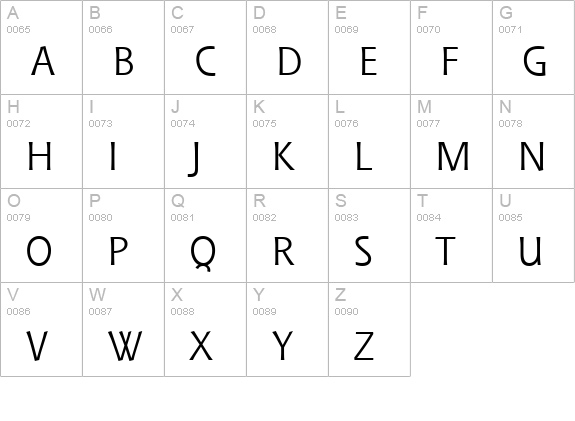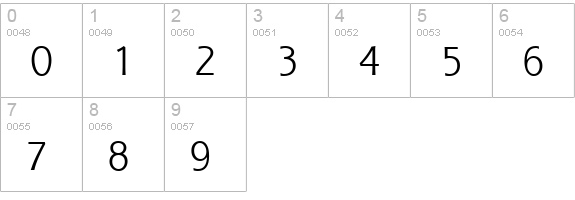
Shannon ATT Font Details
Introducing Shannon ATT, a beautifully crafted font that combines elegance with a touch of modernity. This versatile typeface is perfect for various design projects, from branding to editorial layouts and everything in between. Shannon ATT exudes a sense of sophistication and class, making it the ideal choice for those seeking a font that truly stands out. Its clean lines and delicate curves create a harmonious balance, making it visually appealing and easy to read. But what sets Shannon ATT apart is not just its stunning design; it's also the fact that it is available for free! Yes, you read that right - this remarkable font can be downloaded freely at FontsMarket.com. So whether you're a professional designer or a creative enthusiast, you can enjoy the beauty and elegance of Shannon ATT without breaking the bank. With its extensive character set, Shannon ATT offers support for multiple languages, making it a great choice for international projects. Its versatility allows it to be used in various contexts, from headlines to body text, ensuring a cohesive and polished look throughout your design. Designed with attention to detail and a commitment to quality, Shannon ATT is a font that will make a lasting impression. Its timeless appeal and effortless style will elevate any design, giving it a touch of sophistication and refinement. So why wait? Experience the beauty and versatility of Shannon ATT by downloading it for free at FontsMarket.com. Enhance your projects with this remarkable font and let your creativity soar.